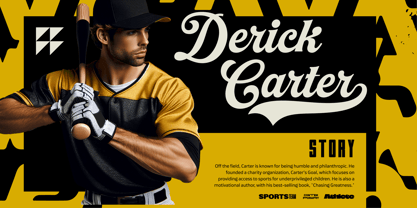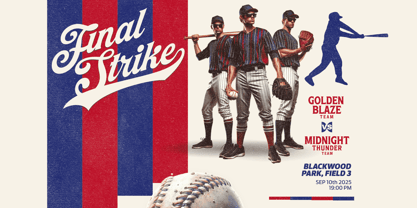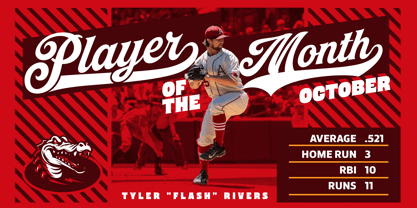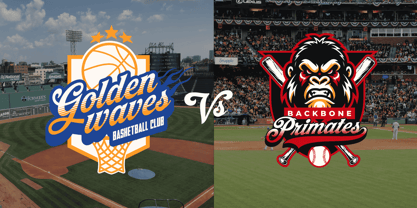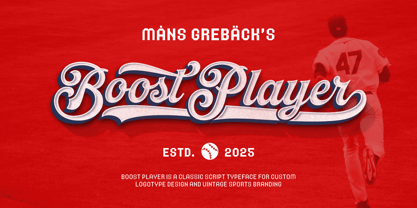
Boost Player
Boost Player is a smooth & bold cursive typeface with a classic vibe.
A stylish, flowing font with a hint of retro, Boost Player has that traditional custom script look, perfect for a sports team logo, a cafe menu or sign-painter style posters. Classy yet modern and crisp, it looks fantastic in branding for a local shop, just like a for a unique book cover, or anything with an authentic look.
Use underscore _ to make a swash.
Example: Baseball_
Use multiple underscores to make longer underlines.
Example: Pennsylvania________
The calligraphy type is carefully constructed to ensure perfect balance between the letters, and to feel both exclusive and familiar.
The font is built with advanced OpenType functionality and guaranteed top-notch quality, containing stylistic and contextual alternates, ligatures and more automatic and manual features; all to give you full control and customizability.
It has extensive lingual support, covering all Latin-based languages, from North Europa to South Africa, from America to South-East Asia. It contains all characters and symbols you'll ever need, including all punctuation and numbers.
Mans Greback has crafted this beautiful script with flow and panache, specially for anything that calls for a handmade and vivid touch.
Måns Grebäck is a type designer and font creator specializing in script typography, but with a portfolio containing a vast selection of styles. Typefaces from Måns Grebäck are used as company and product logotypes, as well as headlines and in advertisement by a wide range of industries world-wide. Founded by Måns Grebäck in 2010, Mans Greback AB originally went under the name of Mawns Fonts and later Aring Typeface AB. While the foundry has its seat Örebro, Sweden, Måns also lives in Portugal. The Premium Foundry page can be viewed Here.